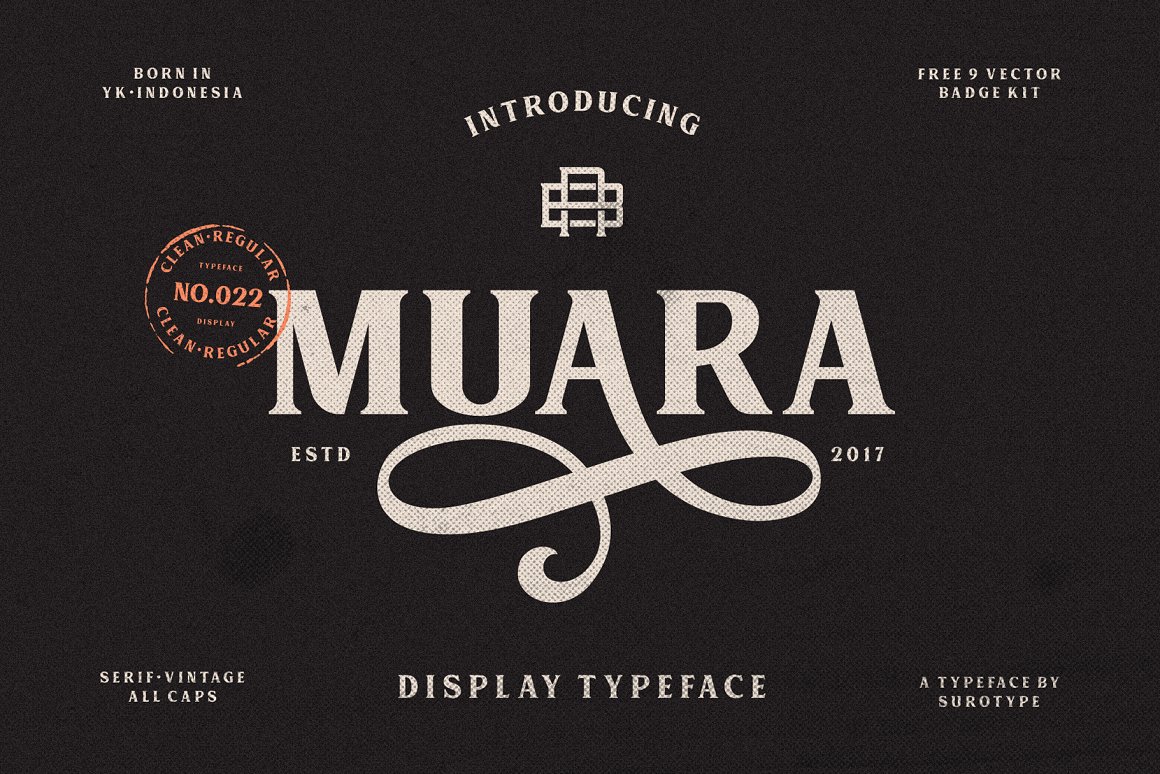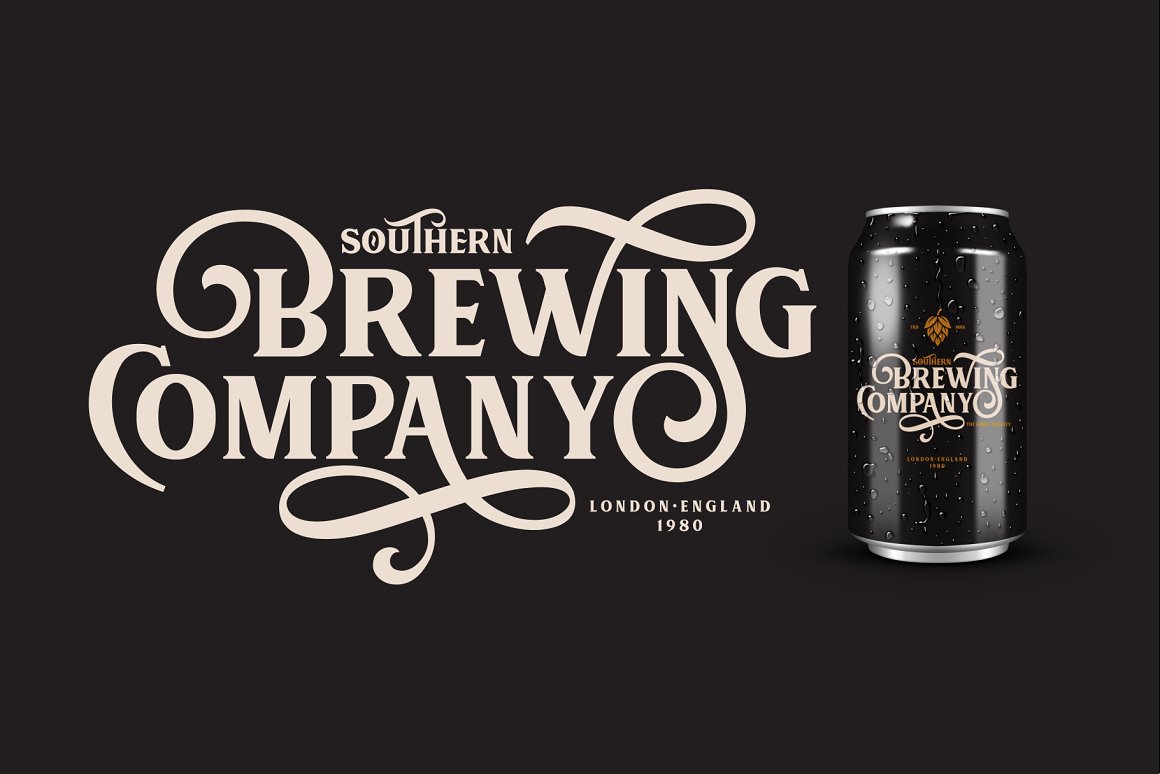
MUARA Typeface
Hello New Year, this is the first font in 2018 I want to introduce to you, a display typeface classic taste. Introducing MUARA Typeface. MUARA designed and shared by Adil Budianto. Very suitable as to make a design choice for books, magazines, packaging, branding , signage and more other creative project. Opentype Features and Alternative Character are not available on the free version, in order to access them you need to buy a Full Version